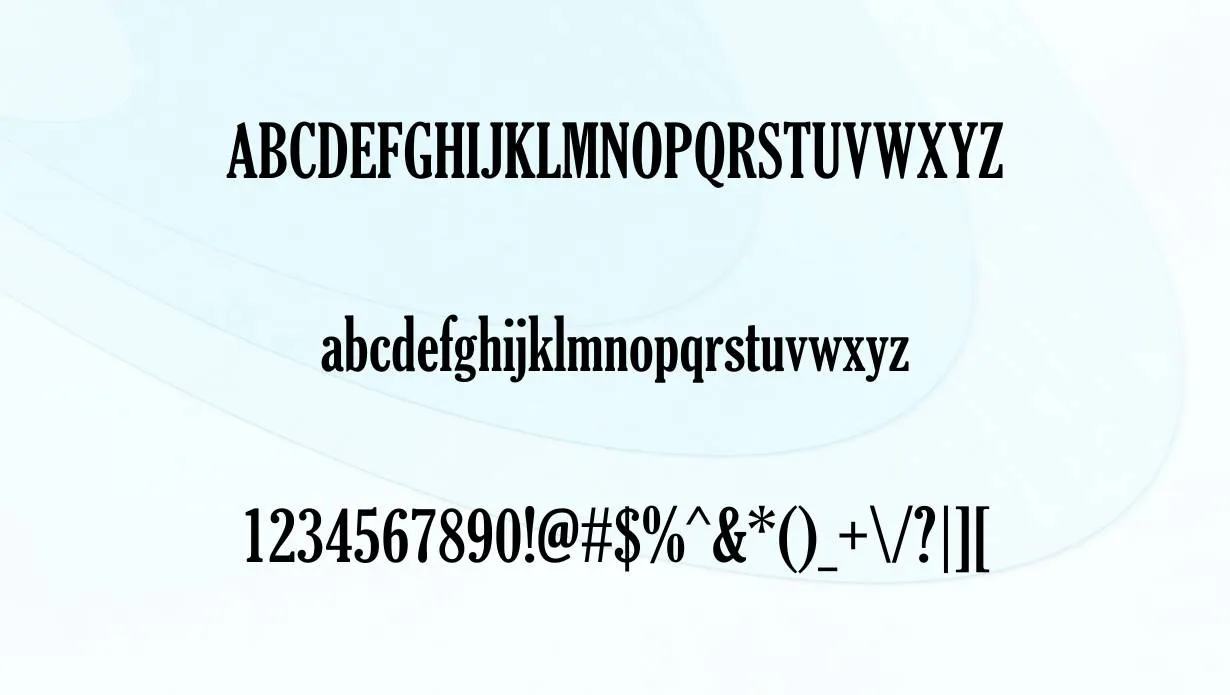
The Gloucester Extra Condensed font boasts a strong and impactful appearance, ideal for making forceful statements. Within Adobe Photoshop, it crafts impactful and commanding designs, demanding attention.
In CSS, it imparts a powerful and impactful essence to web elements. Canva, it’s excellent for producing bold social media posts or impactful event graphics that assert themselves with their boldness and strength.
| Name | Gloucester Extra Condensed Font |
| Designer | Bertram G. Goodhue |